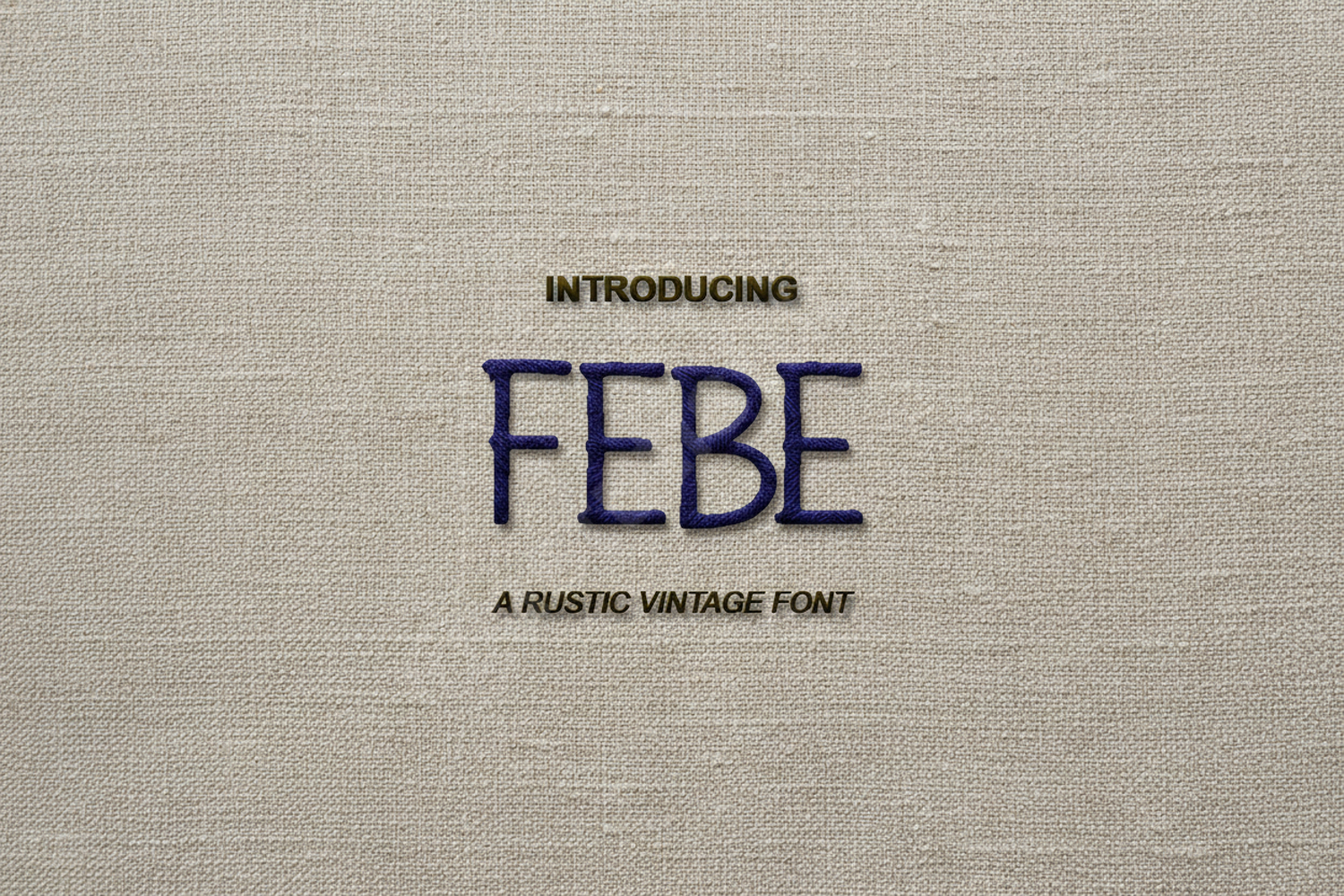
Febe - Elegant Modern Serif Typeface
Febe
Febe is a premium serif font that balances classic elegance with a contemporary edge. Designed with precision and a focus on high-end aesthetics, Febe brings a sophisticated touch to any creative project. Whether you are crafting a luxury brand identity or a minimalist editorial layout, this font provides the versatility and professional polish you need to stand out.
- Full character set including uppercase and lowercase letters
- Numbers and comprehensive punctuation
- Multilingual support for diverse design needs
Optimized Use Cases:
- Professional Branding and Logo Design: Perfect for creating a memorable and high-end visual identity.
- Wedding Stationery: Adds a touch of timeless romance to invitations, save-the-dates, and menus.
- Editorial and Magazine Layouts: Ensures high readability while maintaining a stylish, curated flair.
- Social Media Graphics: Ideal for elegant quotes, announcements, and aesthetic content.
- Product Packaging: Elevates consumer products with a sense of luxury and premium quality.